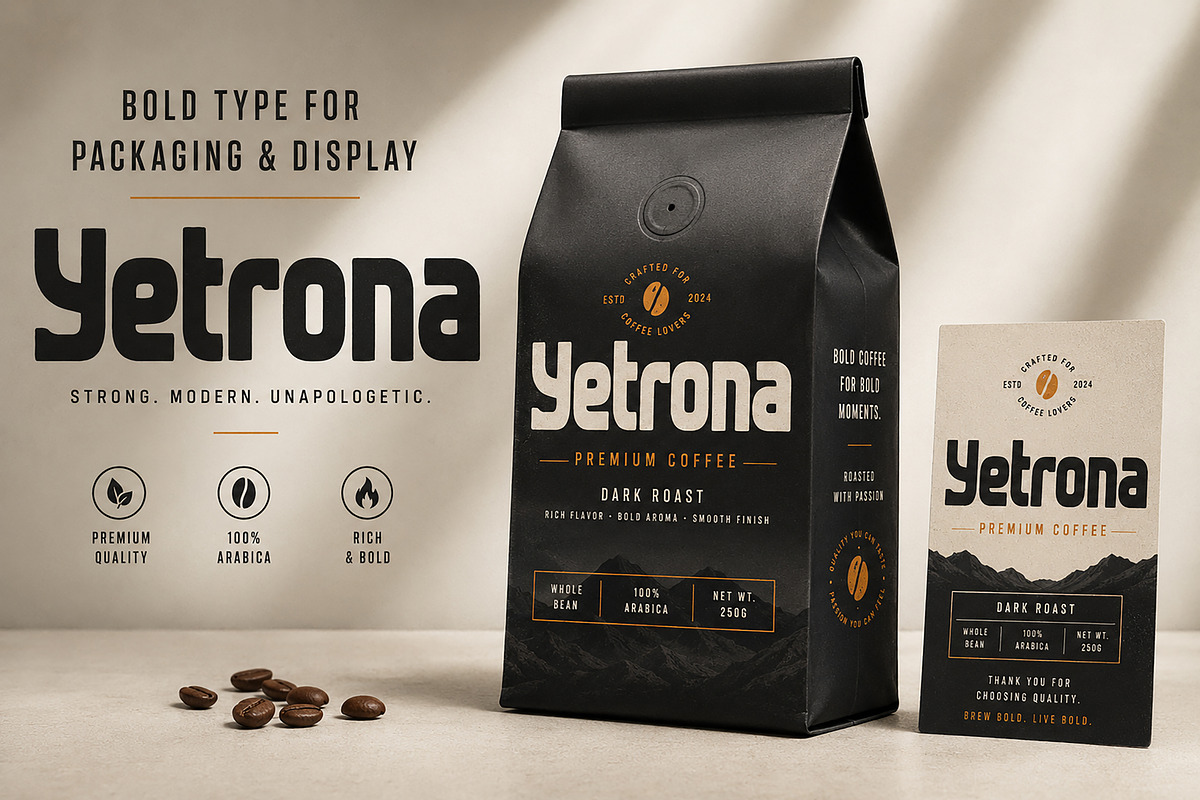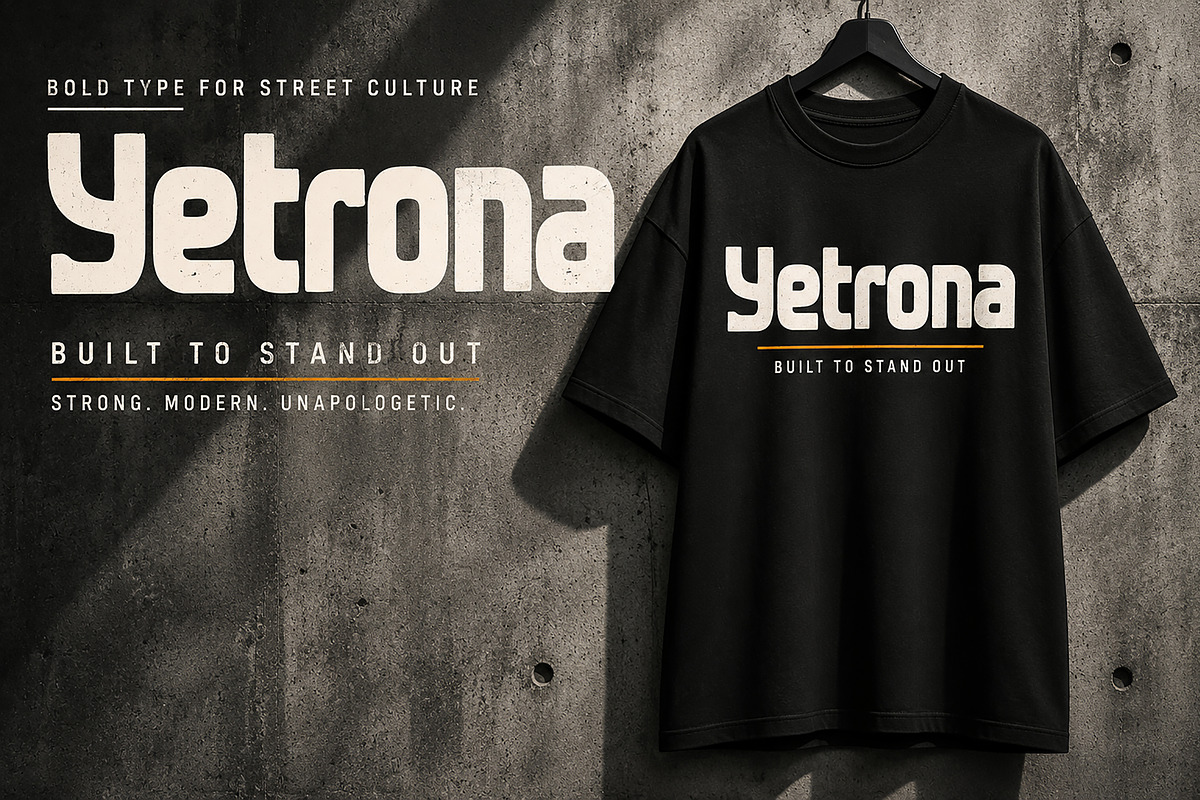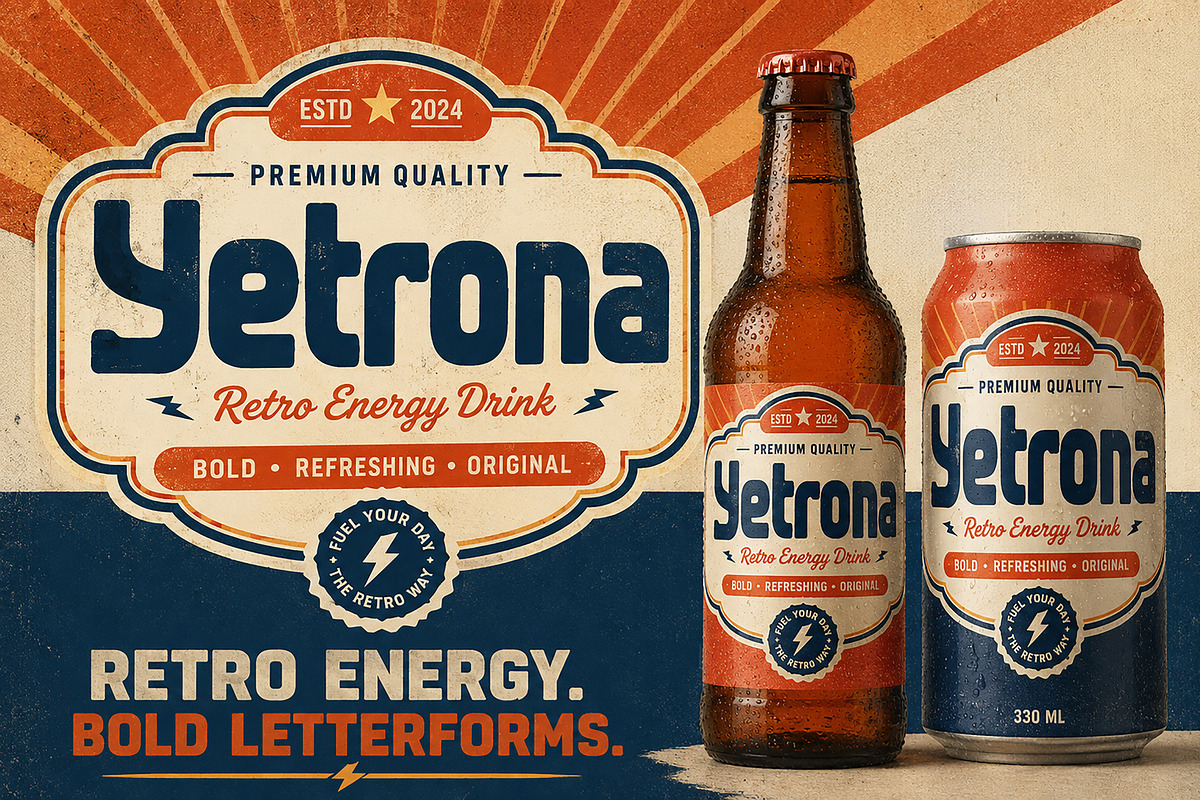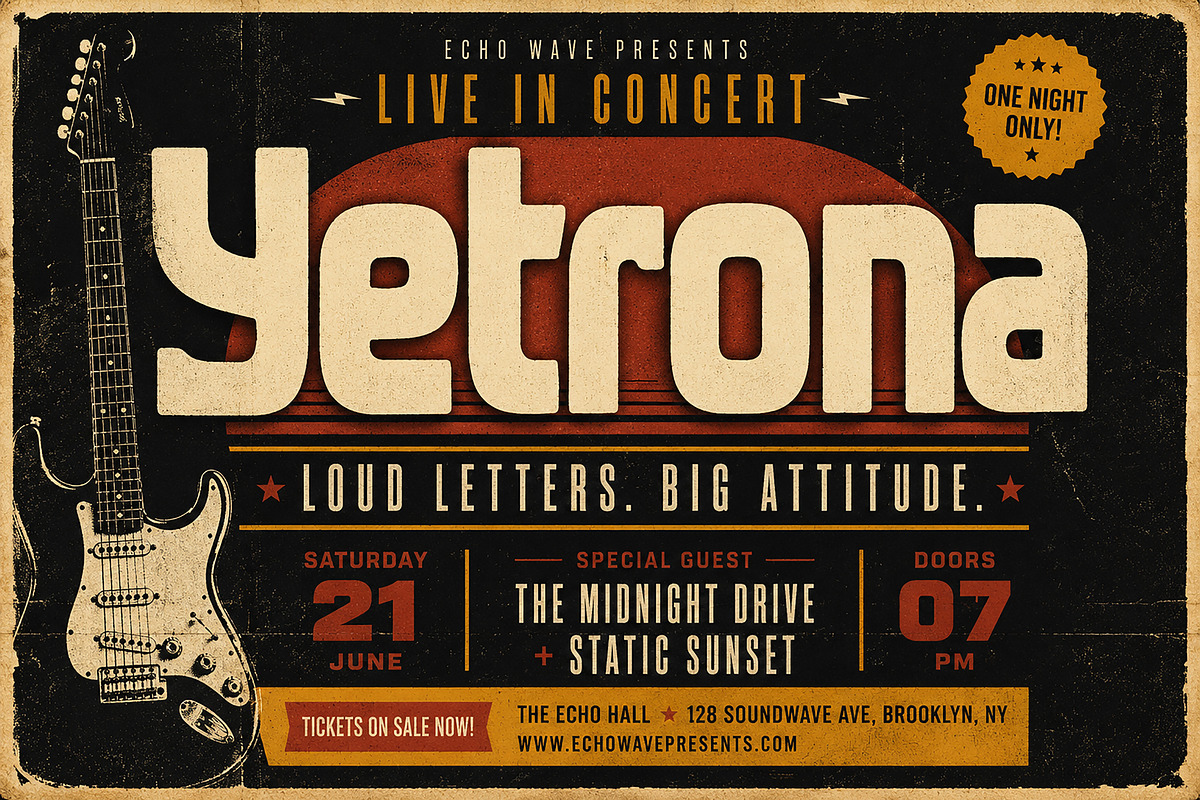
Yetrona - Bold Display Typeface
Yetrona is a bold and expressive display typeface designed to make every word stand out. With its chunky, rounded letterforms and strong visual presence, Yetrona brings a playful yet confident personality to modern design projects.
Perfect for streetwear branding, T-shirt designs, posters, packaging, product labels, logos, merchandise, music artwork, advertising, badges, and eye-catching headlines.
Its distinctive shapes work especially well when you need typography with impact. Use Yetrona for bold brand identities, retro-inspired graphics, apparel collections, packaging concepts, promotional artwork, and other creative display applications.
Logo & Brand Identity
Streetwear & Fashion
T-Shirt & Merchandise Designs
Posters & Flyers
Food & Beverage Labels
Music & Event Graphics
Advertising & Promotional Designs
Headlines & Display Typography
Stickers & Badges
Creative Editorial Designs
Yetrona is built for designers who want typography that feels bold, playful, distinctive, and instantly noticeable.